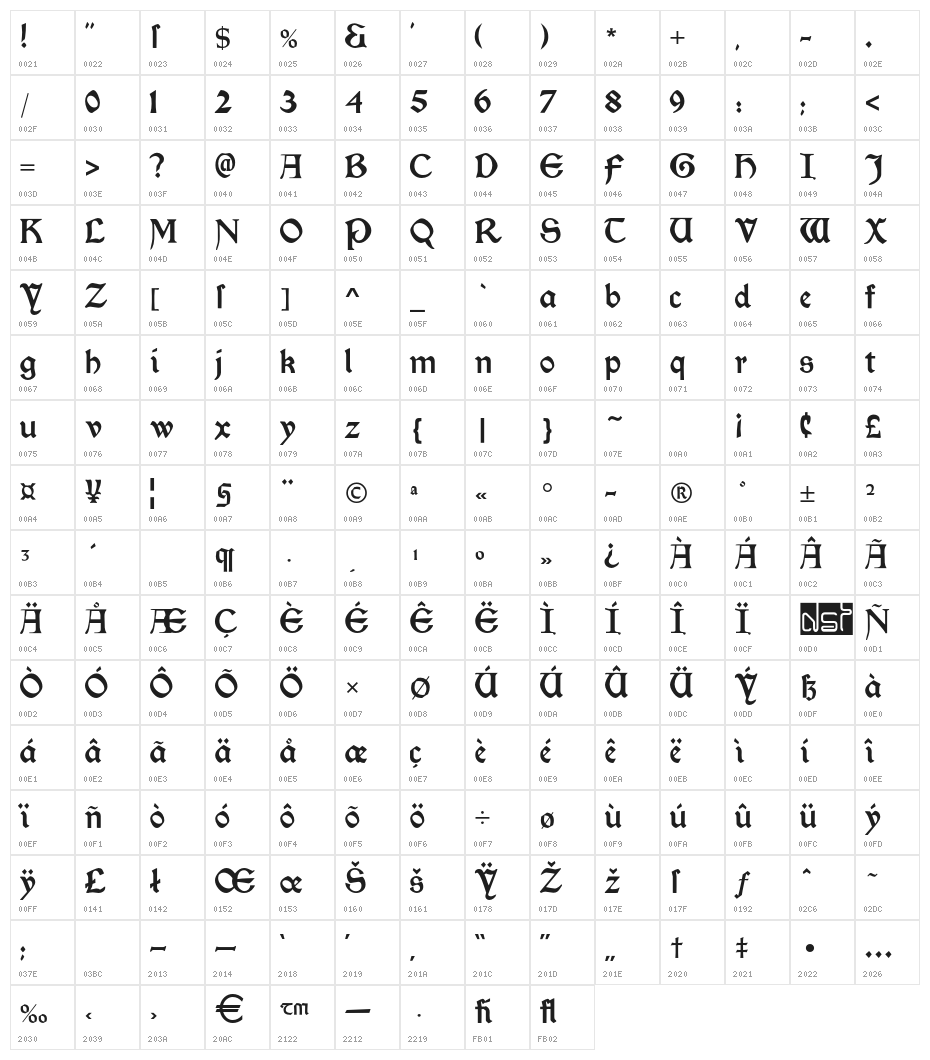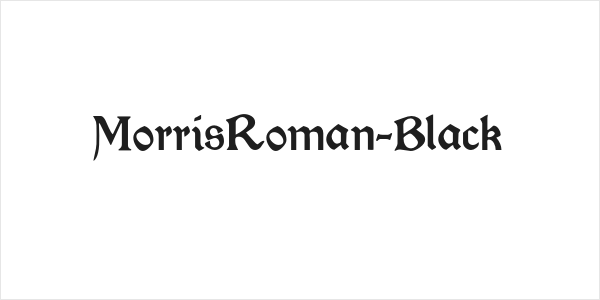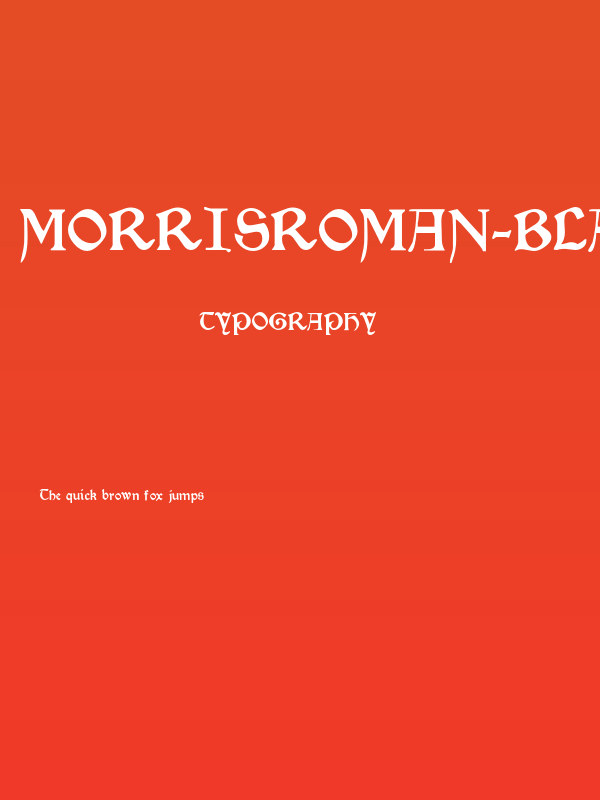
MorrisRoman-Black Font
MorrisRoman-Black Description
This font features a bold and dramatic style, characterized by its strong, angular serifs and high contrast between thick and thin strokes. The uppercase letters have a distinct Gothic influence, with sharp edges and pointed terminals that give them a medieval appearance. The lowercase letters maintain a consistent weight, providing a balanced and cohesive look. The numerals are bold and easily readable, while the special characters retain the font's unique flair. Overall, this font exudes a sense of tradition and authority, making it suitable for projects that require a touch of historical elegance.
| Use Case | Headlines, Logos, Decorative text |
| Proposed Projects | Ideal for use in book covers, historical documents, branding for luxury products, or any project that requires a classic and authoritative aesthetic. |